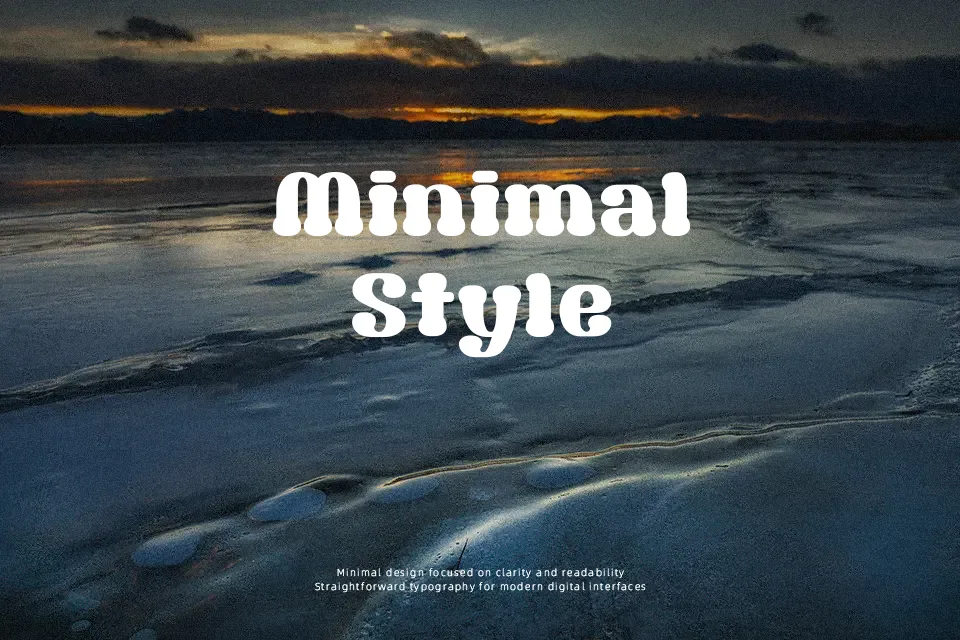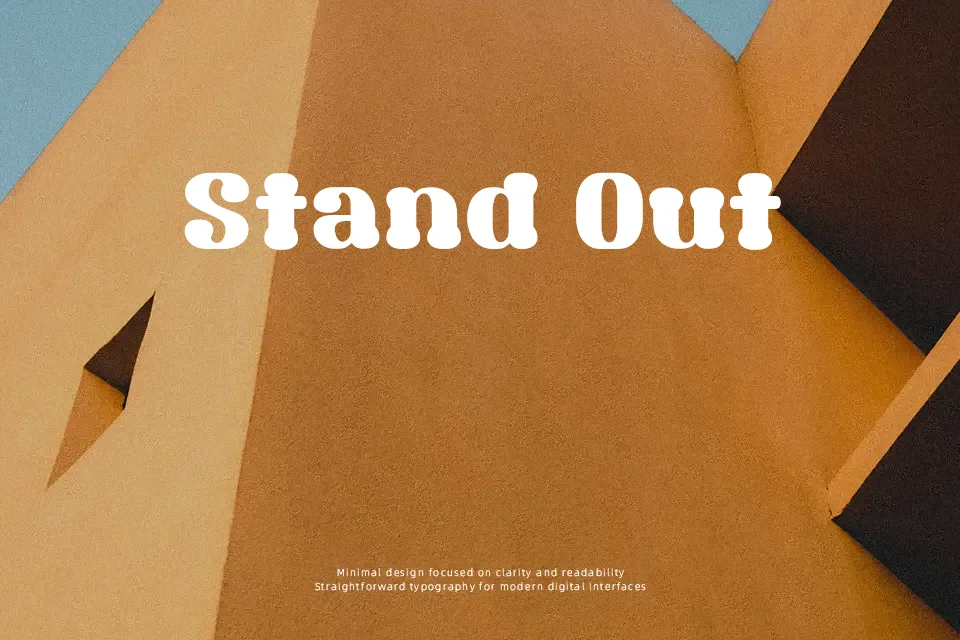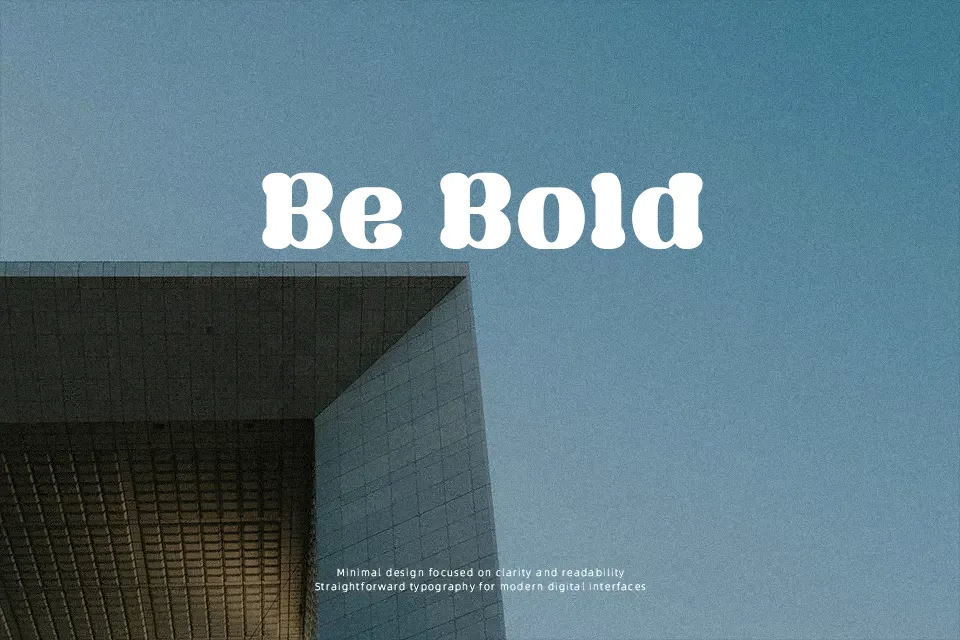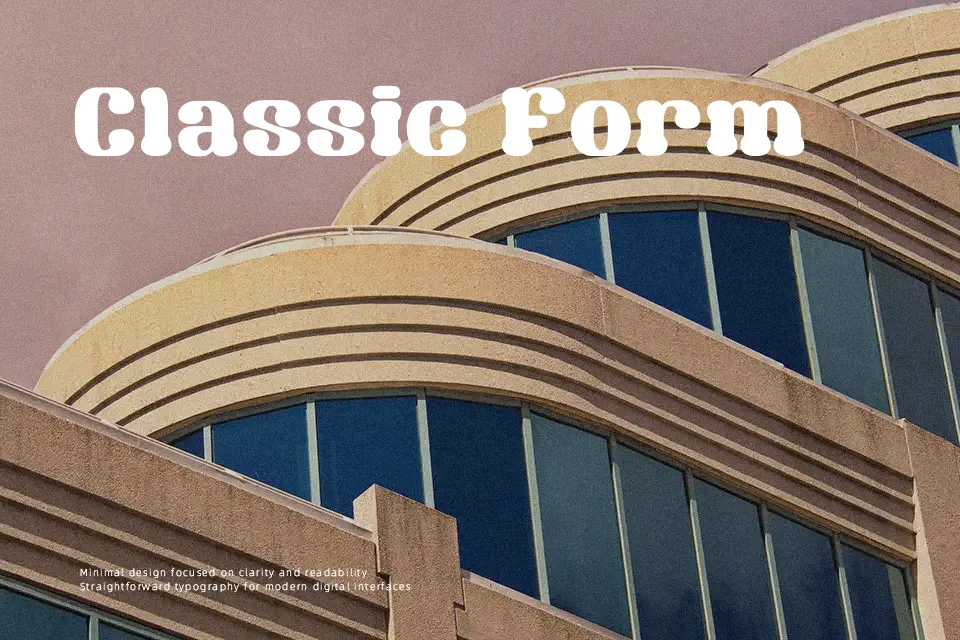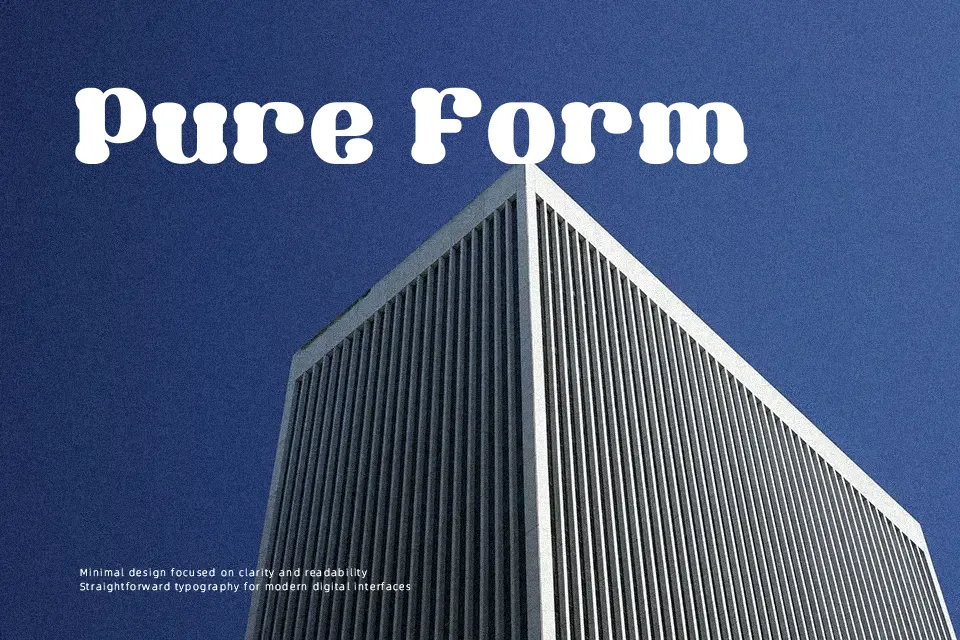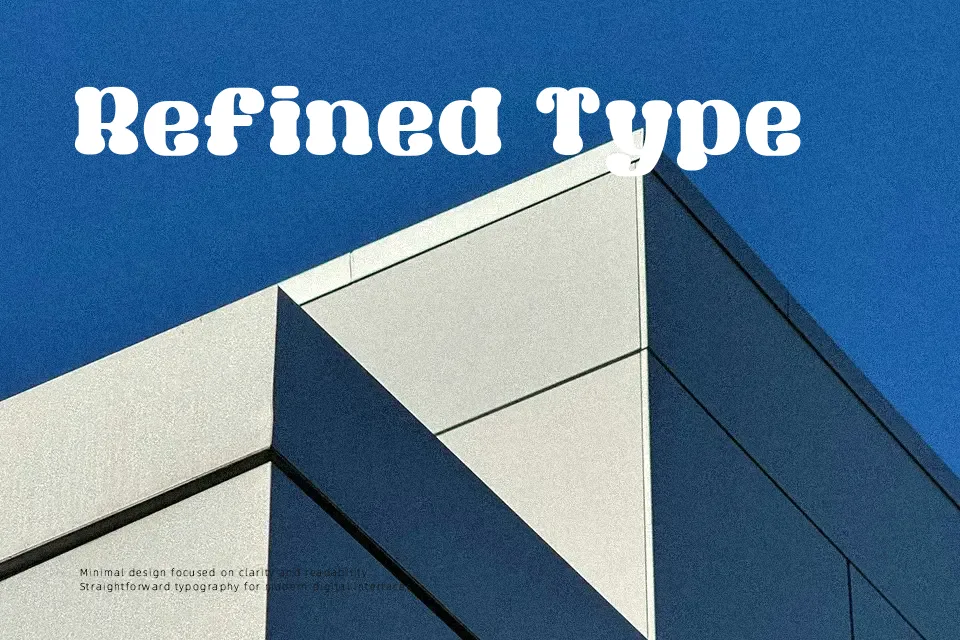
Syouwa Retro Pop G Font
Designed by Goma Shin
Structured around heavy, inflated proportions, Syouwa Retro Pop G Font captures the energetic spirit of classic showa-era graphic design through bulbous contours and minimal internal counter spaces. The letterforms maintain uniform stroke thickness with softened, circular terminals that create a cohesive rhythm when set in short phrases. Spacing is intentionally tight, ensuring individual characters lock together firmly to produce commanding logo treatments and arcade-themed titles. The dense structural weight preserves clear legibility across billboard banners and large signage. However, the compact negative space causes congested letter combinations at smaller text sizes, making the typeface ill-suited for body copy or technical documents.
Best For: retro arcade event posters, snack food packaging, cartoon title cards, playful merchandise branding
Not Ideal For: continuous paragraph text, formal corporate documents, dense financial tables, small mobile captions
Perfect for gaming, headline, and logo, with a bold and decorative style.